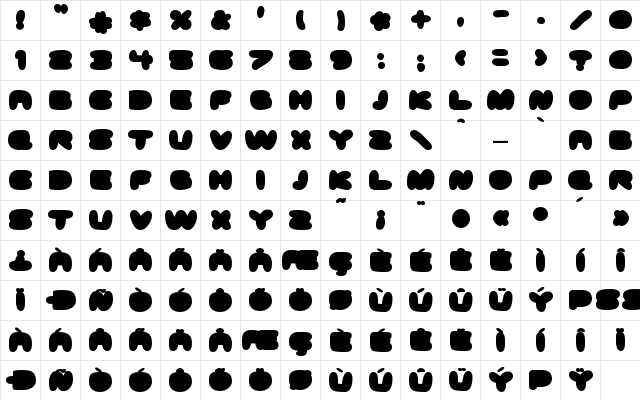
Ghostmeat Back
Design Context for Ghostmeat Typeface
Ghostmeat is a composed and adaptable typeface that performs quietly and consistently across a wide range of design contexts.
Pro Tip: Pair Ghostmeat with a font of contrasting weight or personality to build a more expressive typographic hierarchy.